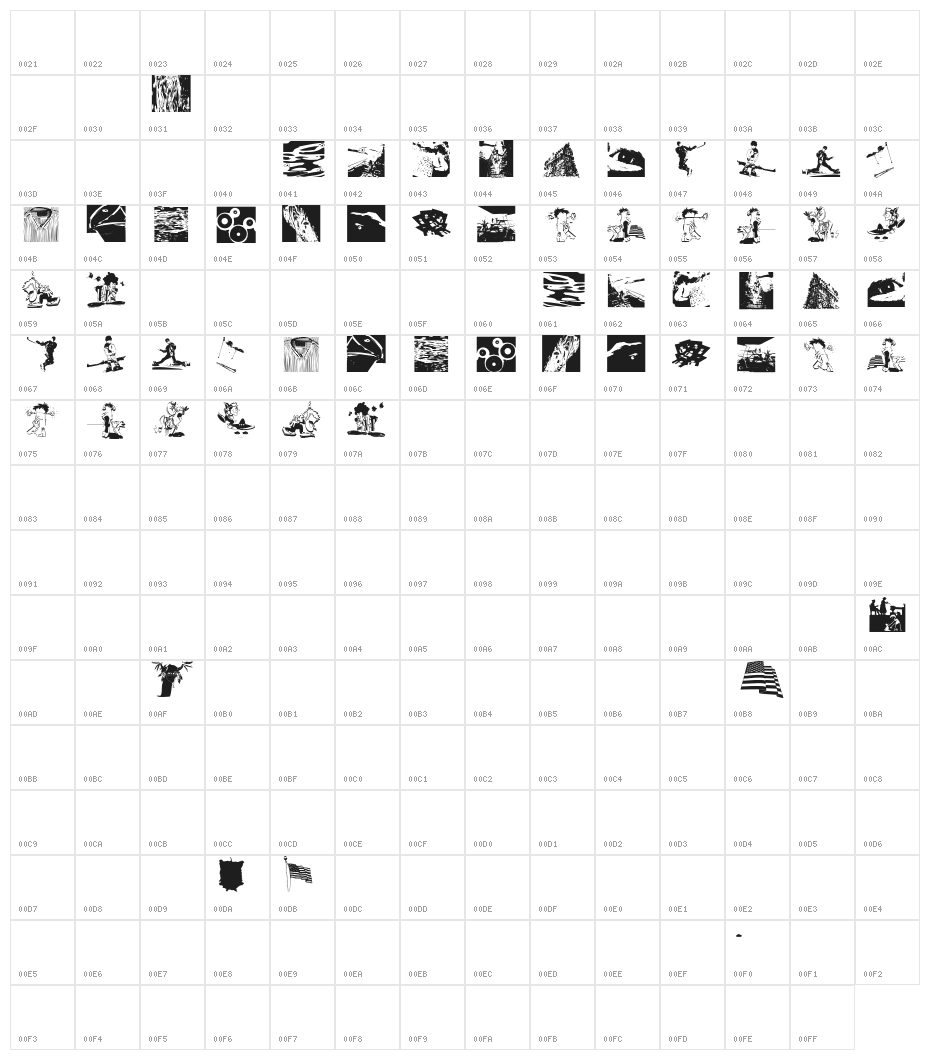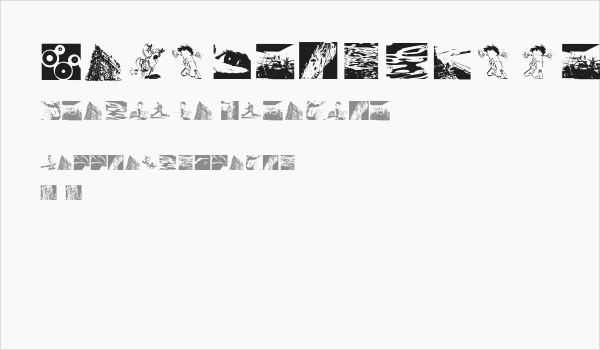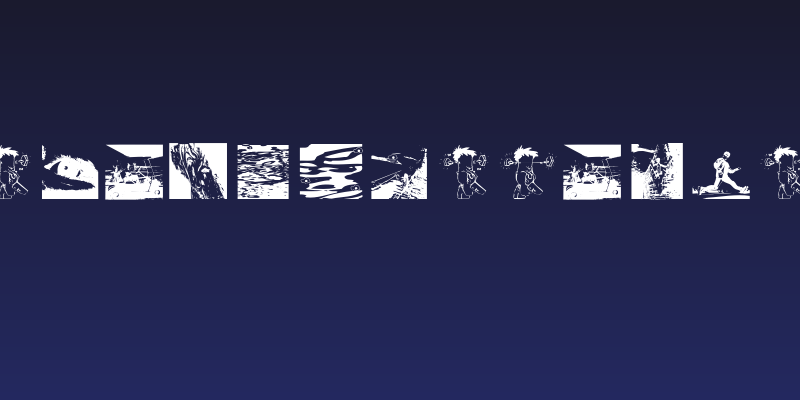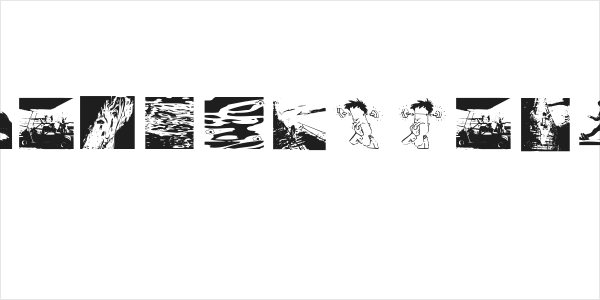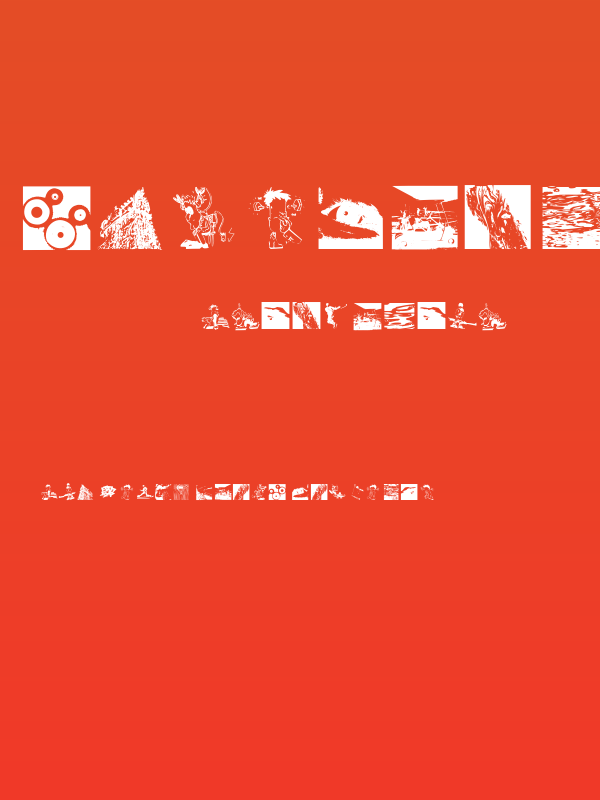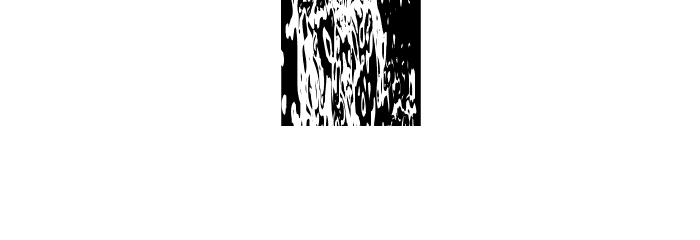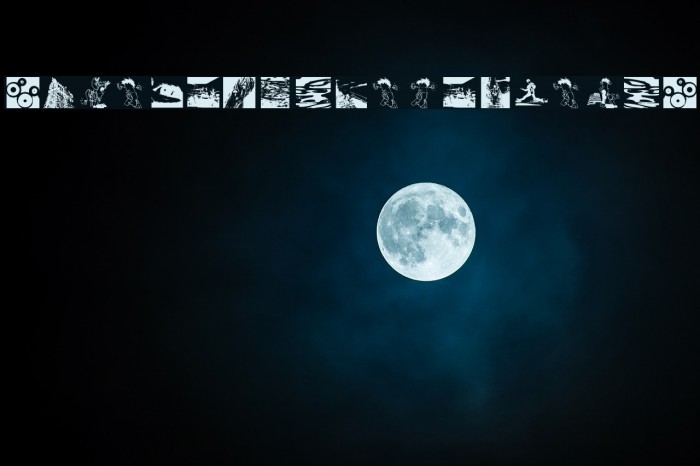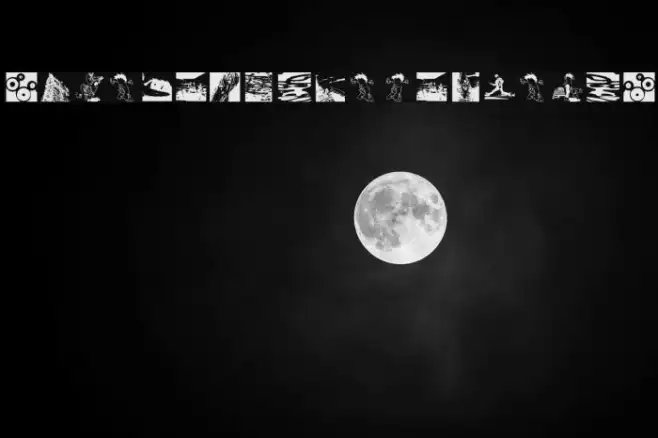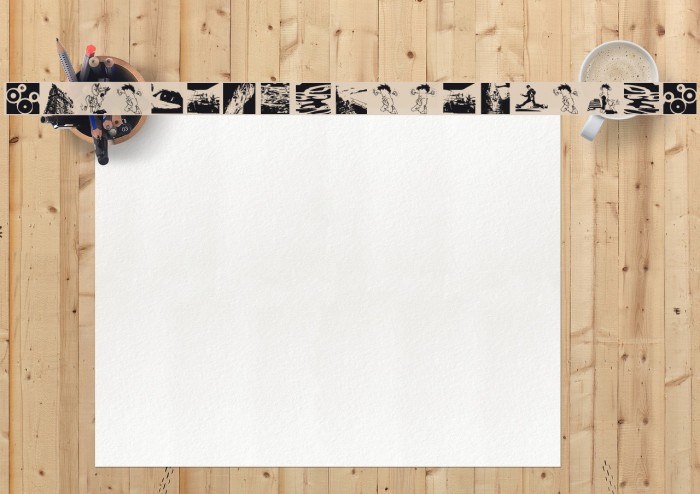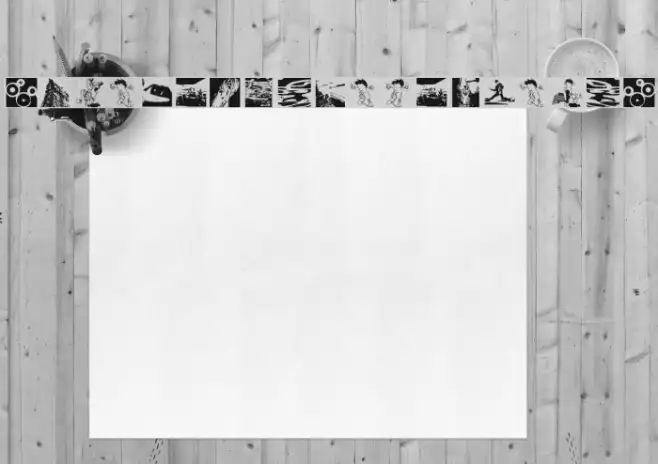
NewsFromAbsurdistan Font
NewsFromAbsurdistan Description
Highly decorative and illustrative font composed of abstract shapes, comic-style characters, and dynamic scenes instead of traditional letterforms. Each glyph is a unique black-and-white illustration, making the set visually engaging but not suitable for standard text representation.
| Overall Style | Decorative, Comic, Artistic |
| Use Case | Logos, Posters, Artistic headlines, Visual storytelling |
| Proposed Projects | Posters, album covers, zines, experimental graphic design, art projects. |